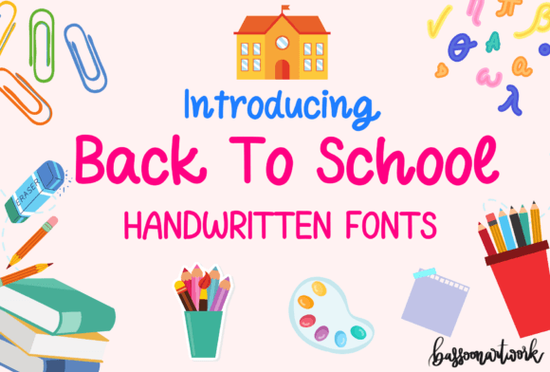
If you're working on back-to-school designs whether for classroom printables, teacher appreciation gifts, or kids' activity sheets you’ll want a font that feels personal and warm. The Back to School Handwritten font fits that need perfectly. It’s a script typeface with gentle curves and subtle imperfections that mimic real handwriting, giving your projects an authentic, approachable look without feeling overly polished or stiff.
This font shines in educational and creative contexts because it echoes the notes students pass in class or the labels teachers write by hand. Its nostalgic charm works especially well for planners, worksheets, greeting cards, and even branding for small education-focused businesses like tutoring services or after-school programs.
What makes this handwritten font different from others?
Many script fonts lean either too formal or too exaggerated. Back to School Handwritten strikes a balance it’s legible enough for everyday use but still full of personality. You’ll notice thoughtful details like varying stroke widths and slightly uneven baselines, which add realism without sacrificing readability.
Who should use this font?
- Teachers and homeschoolers creating custom worksheets, flashcards, or classroom decor
- Print-on-demand sellers designing mugs, T-shirts, or notebooks with motivational school-themed quotes
- Small business owners offering student discounts, back-to-school promotions, or educational kits
- Crafters and hobbyists making scrapbook pages, gift tags, or handmade cards for classmates or educators
Because the font includes both uppercase and lowercase letters plus punctuation and numerals, it’s versatile enough for headlines and short body text alike. Just keep line lengths short for best readability this isn’t a font for dense paragraphs, but it’s ideal for titles, labels, and callouts.
How to pair it with other fonts
To avoid visual clutter, pair Back to School Handwritten with a clean sans-serif. Think fonts like Helvetica, Arial, or even Creative Fabrica’s Roflag Stencil if you want a slightly more graphic contrast. A simple pairing lets the handwritten style stand out without competing for attention.
You could also layer it subtly with another script for depth just make sure they have clearly different rhythms. For example, Nadel Script has tighter loops and sharper angles, which can complement the softer flow of Back to School Handwritten when used sparingly (like for a subheading or accent word).
Realistic usage tips
Remember: handwritten fonts work best when they feel intentional, not accidental. Avoid using all caps this font’s charm lives in its lowercase forms. Also, give it breathing room; tight tracking or heavy effects like outlines can flatten its organic appeal.
For inspiration, you can see how others have used similar styles by browsing collections like Back to School Handwritten, or explore related options such as Milk Peach, which offers a similarly friendly vibe with rounder letterforms.
With its genuine, handcrafted feel, Back to School Handwritten adds heart to any project that celebrates learning, growth, or childhood memories. Whether you’re designing for profit or just for fun, it’s a reliable choice that avoids trendiness in favor of timeless warmth.